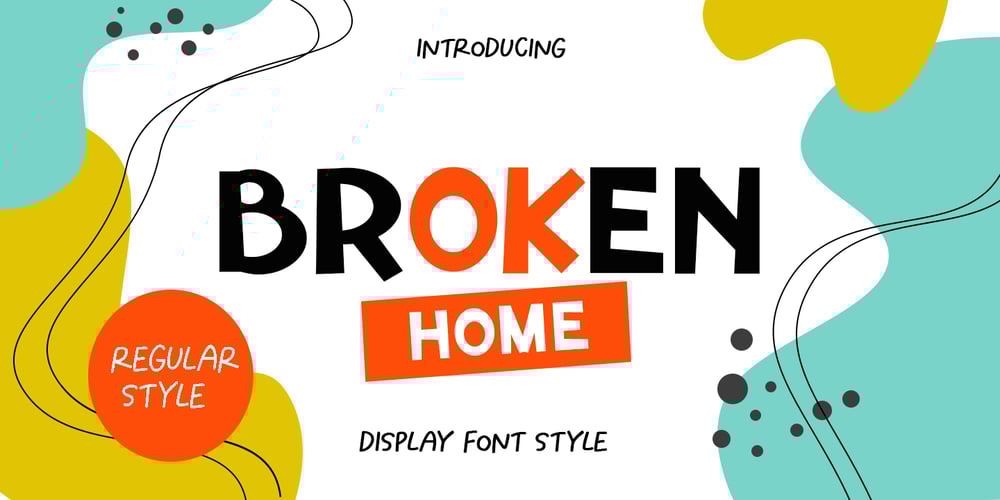
Broken Home Font Family was designed by Wildan Carbon and published by Wildan Type. Broken Home contains 2 styles and family package options. Broken home is a cute handwritten font with display letters!This font is perfect for shirts, mugs, signs, children’s designs, headings, blogs, logos, brandings, invitations, and more!